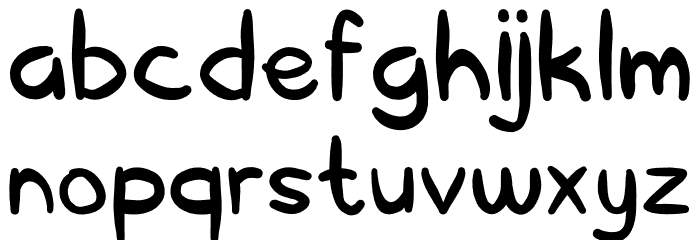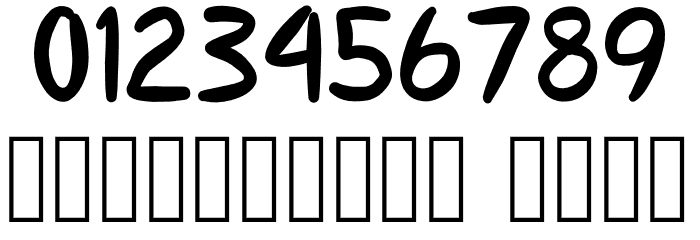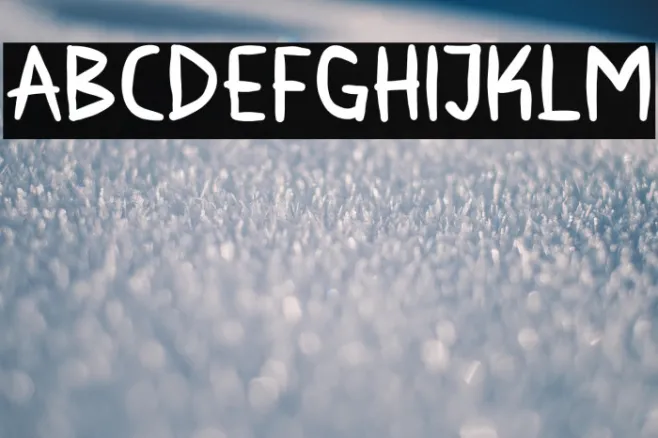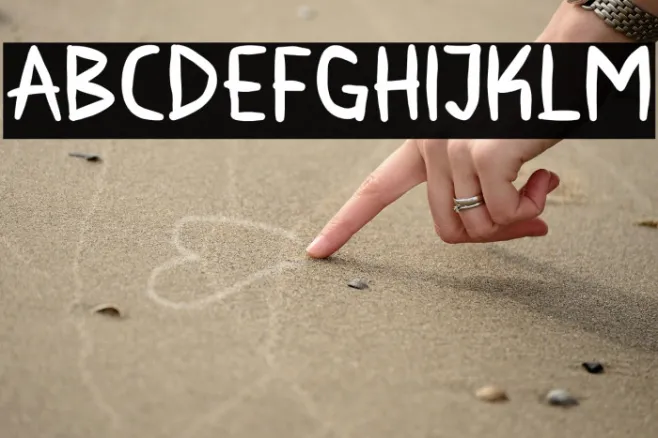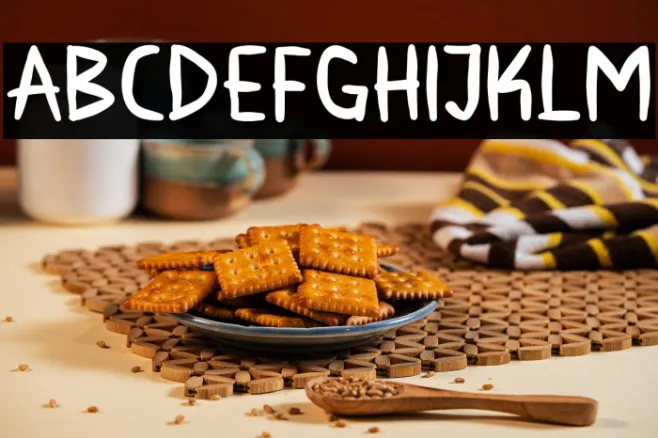
Kerape Font
This playful and informal font features a handwritten style with rounded edges and a casual appearance. The characters are slightly irregular, giving it a friendly and approachable feel. The uppercase letters are bold and prominent, while the lowercase letters maintain a consistent flow with a slight slant. The numerals are clear and easy to read, matching the overall style of the alphabet. The special characters are well-integrated, maintaining the same playful aesthetic. This font is perfect for projects that require a personal touch, such as invitations, greeting cards, or children's book covers.
A playful, handwritten font with rounded edges and a casual style.
- Font: Kerape
- Proposed Projects: Ideal for invitations, greeting cards, children's books, and casual branding.
- Category: Handwritten
- Overall Style: Casual
- Use Case: Headlines, Logos, Informal Text